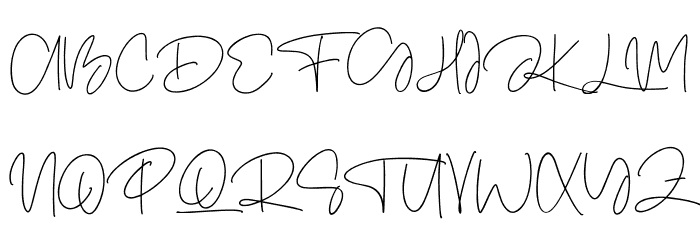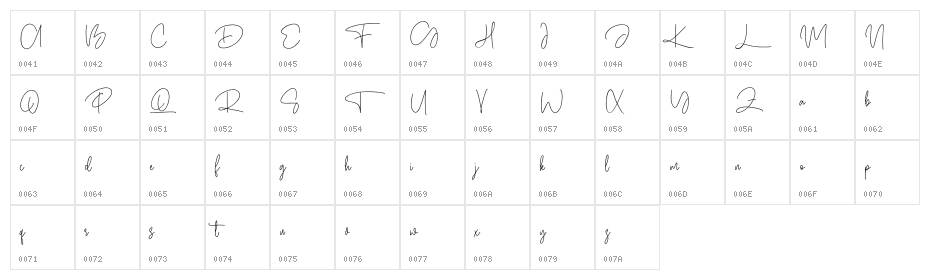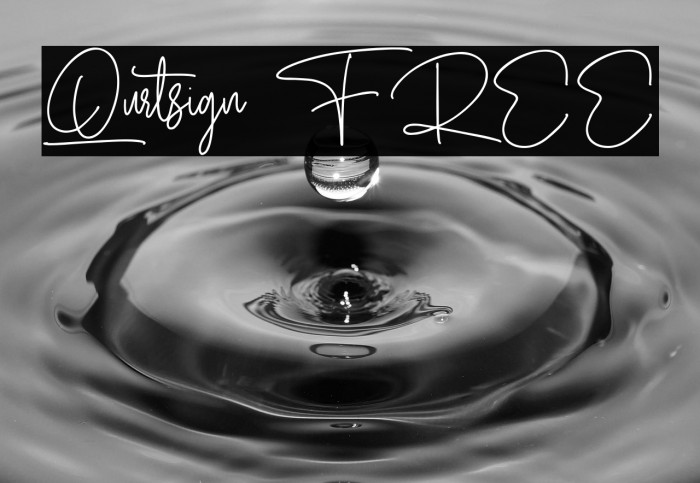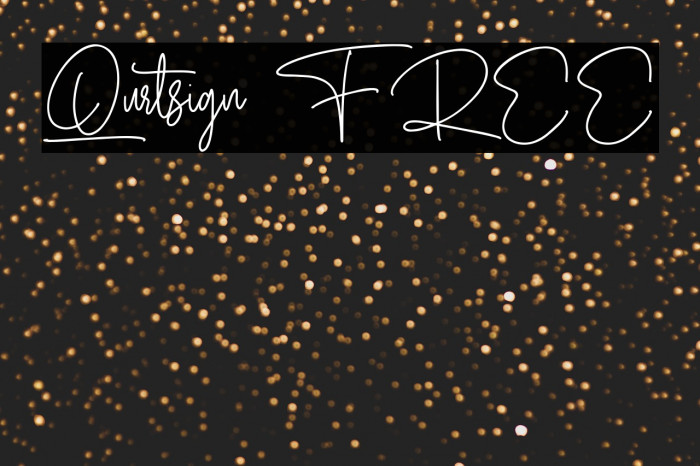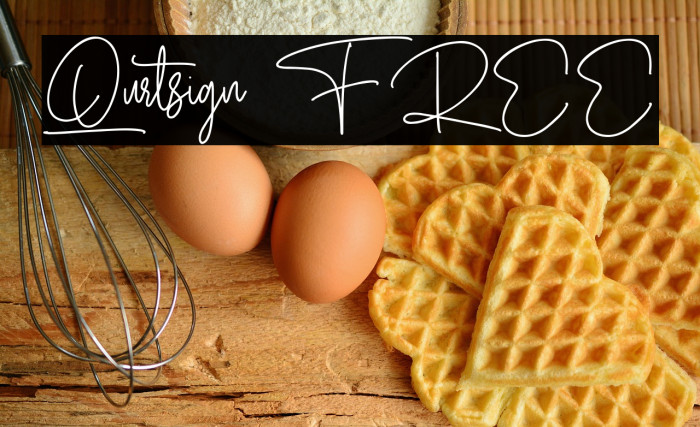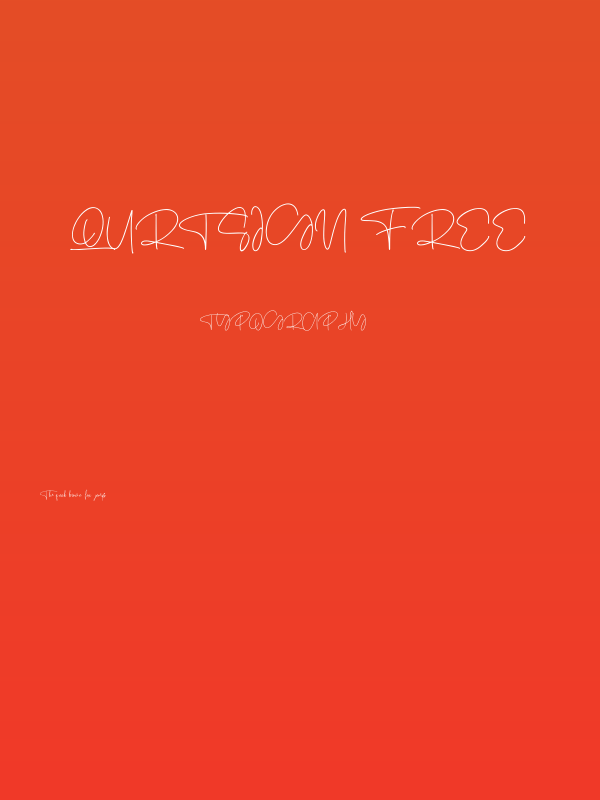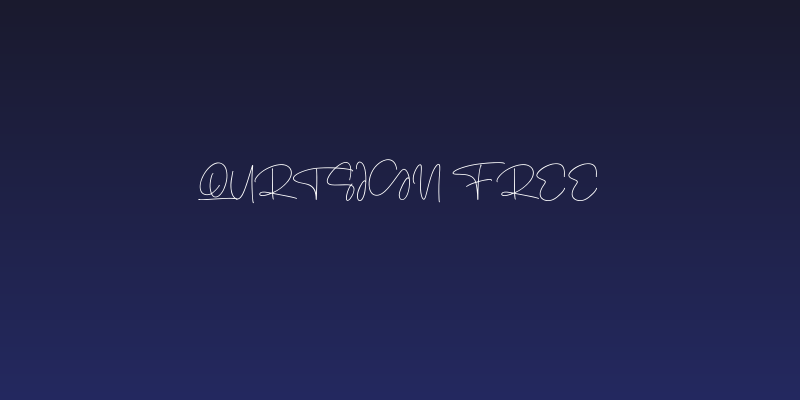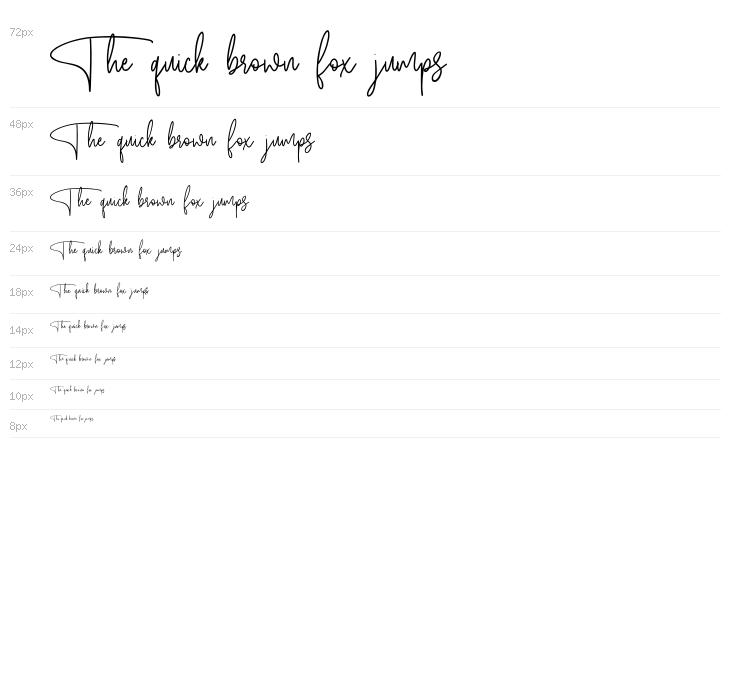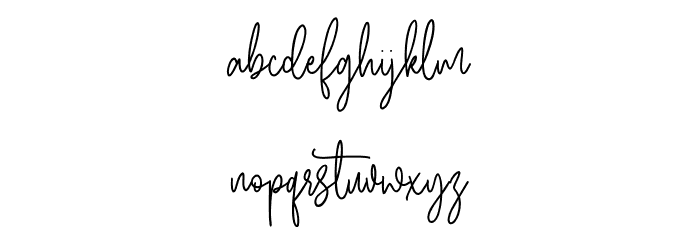
Qurtsign FREE Font
Qurtsign FREE Description
This font features a unique, flowing script style with a handwritten appearance. The uppercase letters are characterized by their large, looping strokes that give a sense of elegance and fluidity. The lowercase letters maintain a consistent style, with smooth curves and a slightly more compact form. The numbers and special characters follow the same aesthetic, ensuring a cohesive look across all elements. This font's delicate lines and artistic flair make it suitable for creative projects where a personal touch is desired.
| Proposed Projects | Ideal for wedding invitations, greeting cards, personal branding, and artistic projects requiring a personal, elegant touch. |